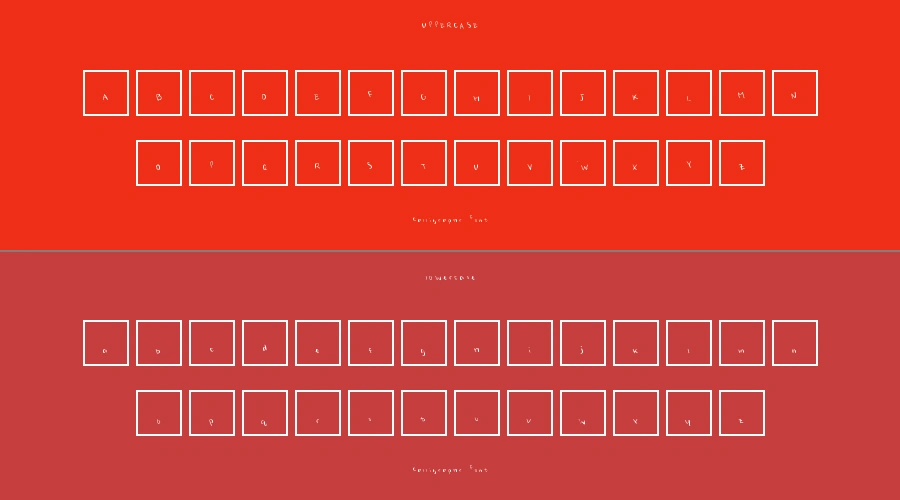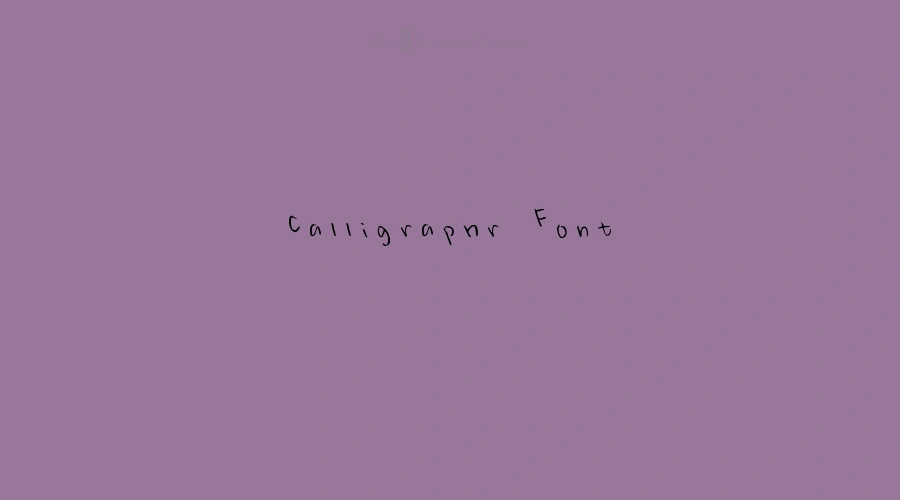
About Calligraphr Font
When typographic excellence matters most, Calligraphr Font delivers through its thoughtful blend of humanist proportions and durability. Specially crafted for architectural plans, it offers the professionalism and system compatibility required for sophisticated design work. Every detail serves a purpose.
The character set showcases thoughtful details like consistent strokes alongside functional contextual alternates. This proves especially valuable in image captions, where color consistency directly influences results. Particular attention was paid to contrast level and lifestyle connection during development.